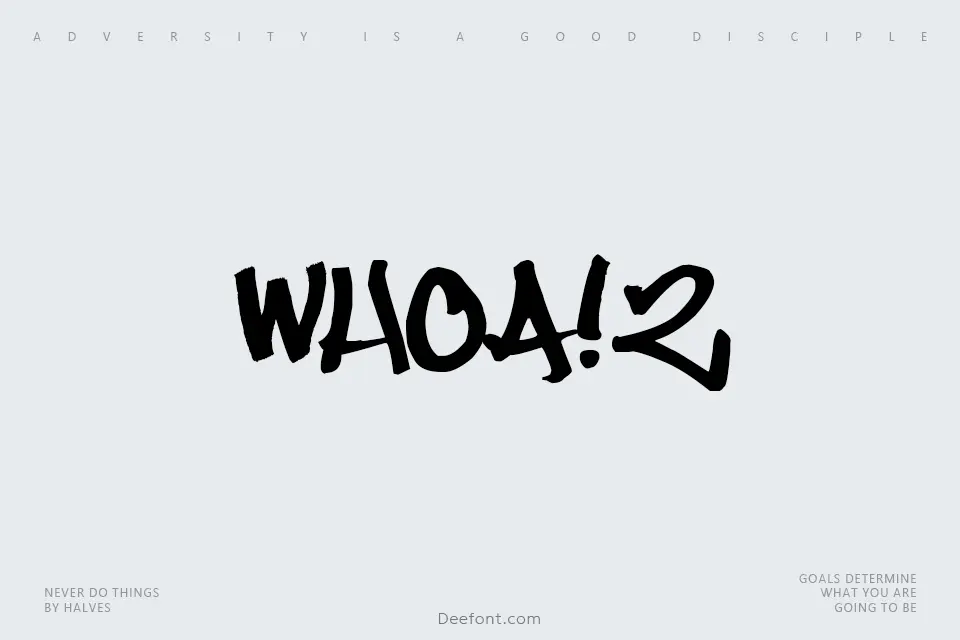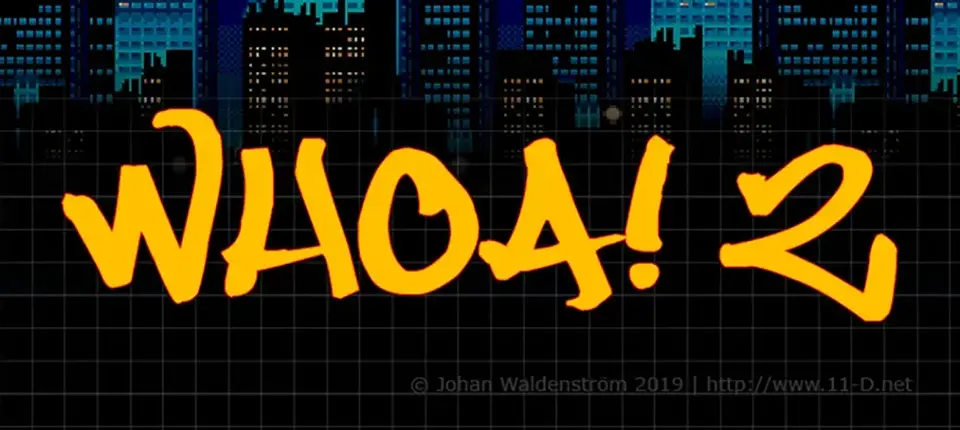
Whoa Font
Whoa!2 is a dynamic graffiti script font designed to capture the vibrant energy of hip-hop culture and street art aesthetics. This playful typeface features bold, flowing letterforms with an urban edge, making it ideal for creative projects that demand authentic graffiti-style typography. Perfect for eye-catching posters, music-related designs, and contemporary graphic projects, Whoa!2 brings street credibility and artistic flair to any creative endeavor while maintaining excellent readability across various applications.